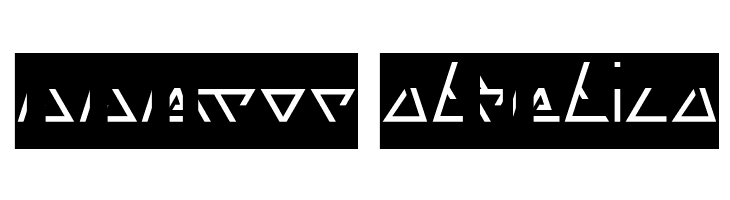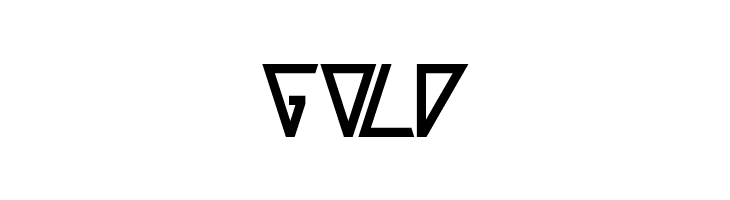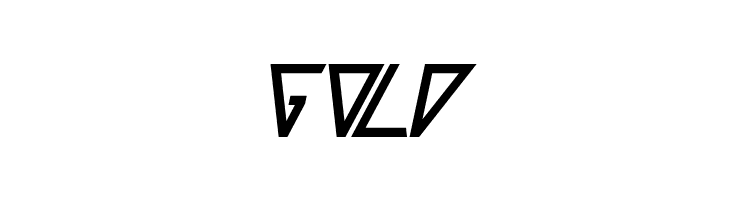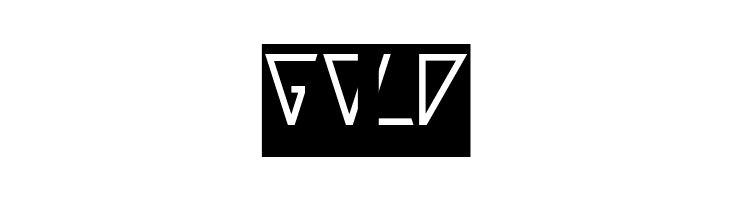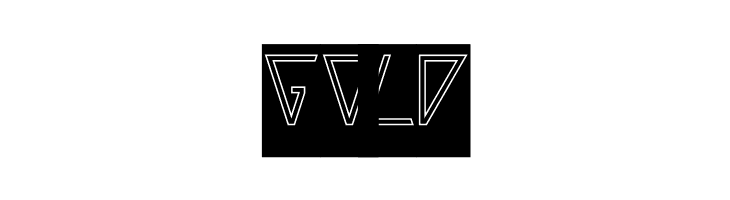
A bold, angular, and futuristic geometric font.
A bold, angular font with a futuristic and edgy design.
A bold, geometric font with hollow interiors and sharp, angular lines.
A geometric, angular font with a futuristic and bold design.